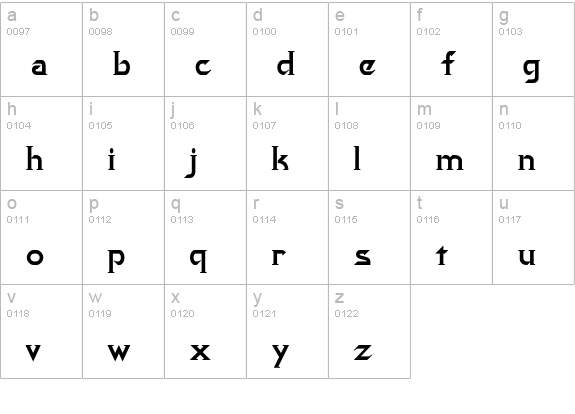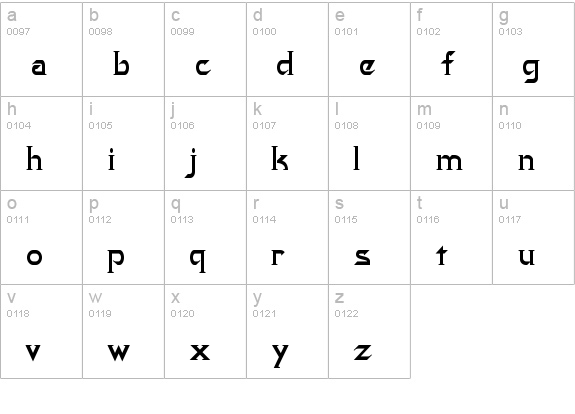
Introducing StarTrekClassicMovies font, a captivating typographic masterpiece that pays homage to the iconic Star Trek movie series. This font exudes a sense of adventure, boldness, and futuristic charm, making it the perfect choice for any design project that aims to captivate the imagination and transport its audience to the vast depths of space. With its sleek and sophisticated letterforms, StarTrekClassicMovies font effortlessly combines the classic typography of the Star Trek movies with a modern twist. Each character is meticulously crafted to embody the essence of the franchise, seamlessly capturing the essence of exploration, discovery, and the boundless possibilities that lie within the universe. But what truly sets StarTrekClassicMovies font apart is its accessibility. This font is not only visually stunning but also freely available to download at FontsMarket.com, ensuring that designers, enthusiasts, and aficionados alike can effortlessly bring the spirit of Star Trek to their creative projects without any limitations. Whether you're designing a movie poster, a sci-fi book cover, a logo for a space-themed event, or simply want to add a touch of intergalactic charm to your personal creations, StarTrekClassicMovies font is the ultimate tool to elevate your designs to new dimensions. Its versatility allows it to seamlessly blend with various design styles, making it a valuable asset for both professionals and beginners alike. So, embark on a typographic journey like no other and download StarTrekClassicMovies font today, completely free at FontsMarket.com. Unleash your creativity and boldly go where no design has gone before with this remarkable font that encapsulates the essence of Star Trek's timeless legacy.